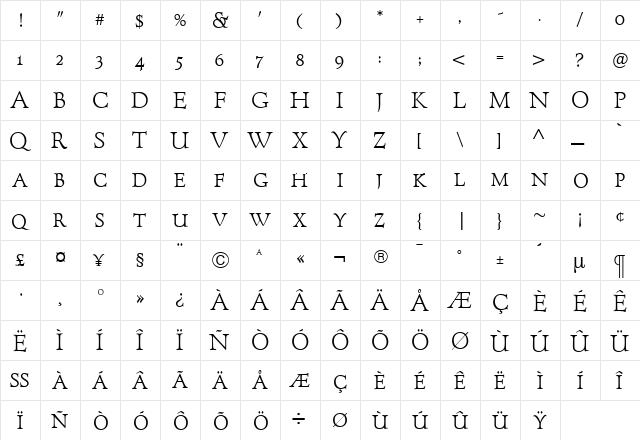
ForumTitlingMediumOldStyleFigs Roman
Design Context for ForumTitlingMediumOldStyleFigs Typeface
ForumTitlingMediumOldStyleFigs carries the refined structure of traditional serif typography, with bracketed terminals and considered proportions that communicate credibility and craft.